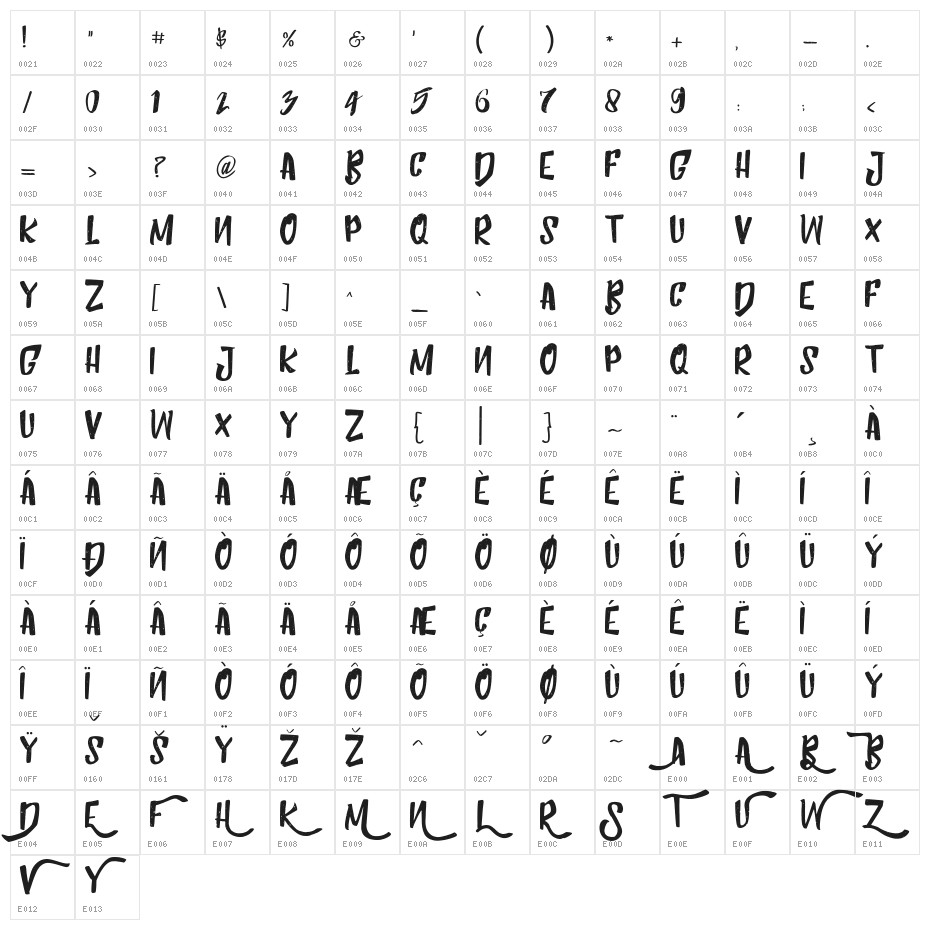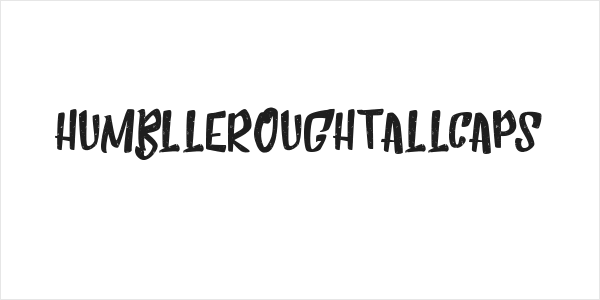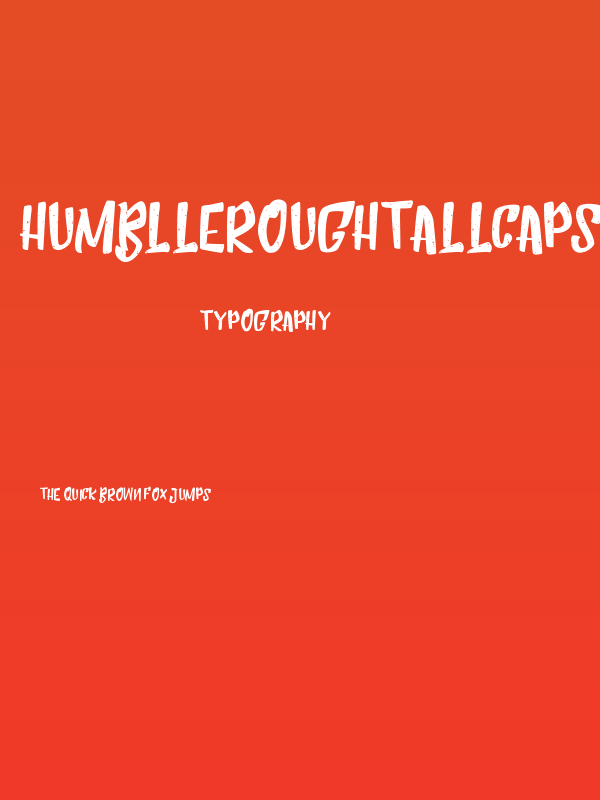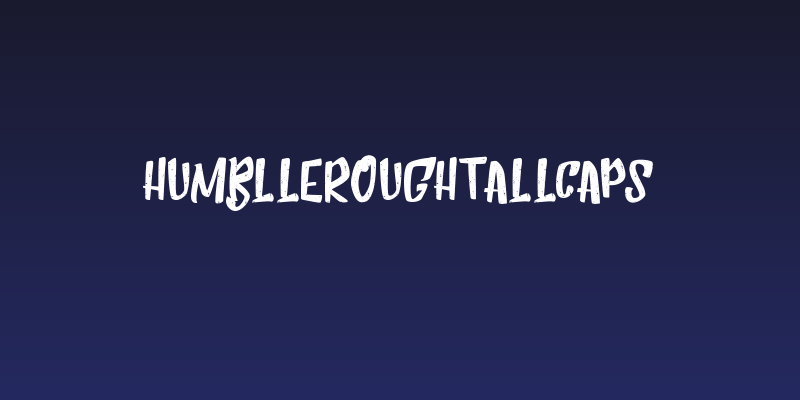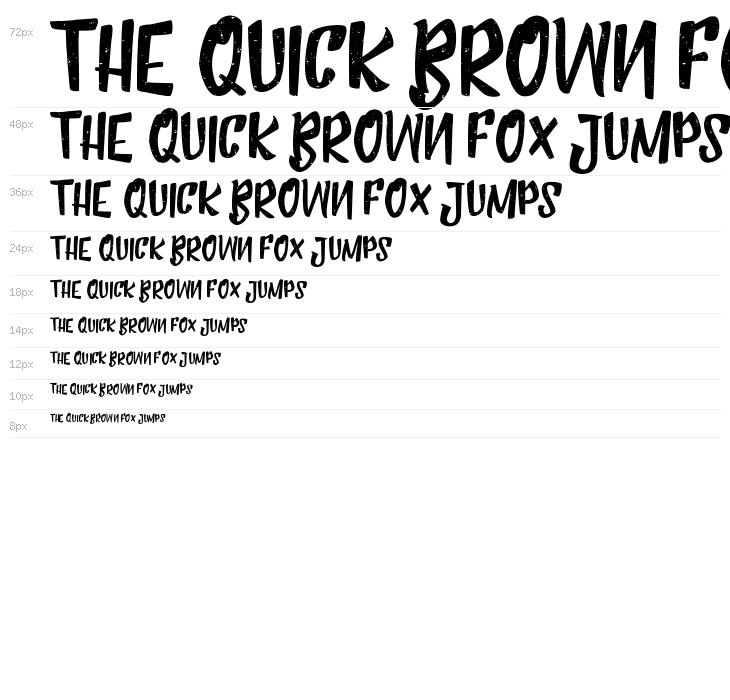
HumblleRoughtAllCaps Font
HumblleRoughtAllCaps Description
This font features a bold, hand-drawn style with a rough texture that gives it a rustic and organic feel. The uppercase letters are prominent and slightly irregular, adding a sense of authenticity and character. The numerals and special characters maintain the same rugged aesthetic, making them suitable for designs that require a handcrafted touch. The overall appearance is dynamic and energetic, perfect for projects that aim to convey a sense of adventure or creativity. The font's unique texture and bold strokes make it stand out, ensuring that any text set in this style will capture attention.
| Overall Style | Rustic, Handcrafted |
| Proposed Projects | Ideal for branding, posters, packaging, and any design needing a handcrafted, rustic look. |